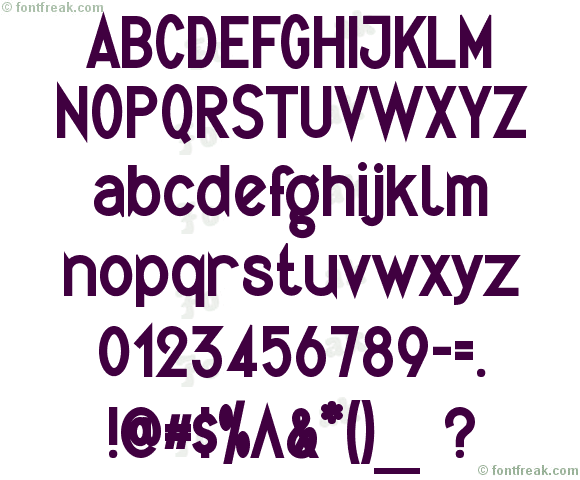
Quirkus Upside Down
Quirkus Upside Down is a distinctive display font designed by Peter Wiegel, offering a unique twist on traditional typography. This font falls under the category of decorative typefaces, featuring bold, playful letterforms that are perfect for creative projects. The visual characteristics of Quirkus Upside Down include a robust stroke weight, which provides a strong presence, and a slightly unconventional arrangement that challenges the standard reading direction. The letters exhibit a consistent spacing that enhances readability, while the quirky design elements add a touch of whimsy.
This font is ideal for a variety of specific use cases. It excels in creating eye-catching movie posters, where its playful nature can draw attention and evoke curiosity. Additionally, Quirkus Upside Down is well-suited for restaurant menus, giving a modern and fun vibe that can enhance the dining experience. It can also be used in advertising materials, especially for brands looking to convey a quirky personality. Graphic designers will find it useful for creating unique branding elements, while content creators can leverage its charm in social media graphics and promotional content.
What sets the Quirkus Upside Down font apart is its ability to blend humor with functionality. This font not only serves as a visual tool but also invites engagement, making it a standout choice for anyone looking to make a memorable impact. For those interested, a Quirkus Upside Down font free download is available, allowing you to explore its unique qualities firsthand.